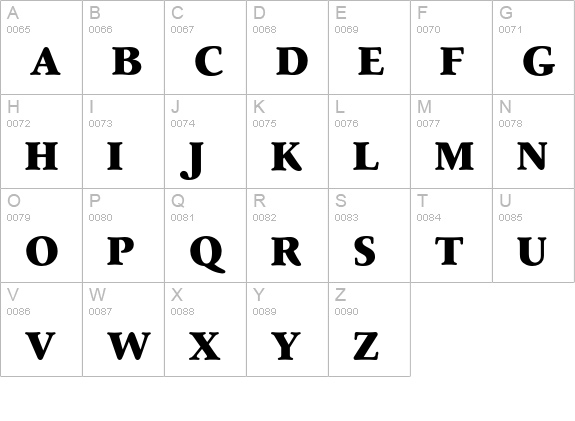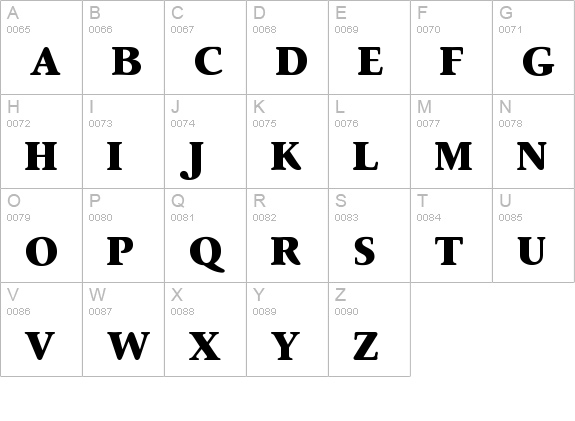
Seneca Extra Bold is a strong, high-contrast variant in the Seneca typeface family \xE2\x80\x94 well suited to headlines, attention-grabbing titles, and strong calls-to-action.
Seneca Extra Bold font is a magnificent display typeface that exudes power, confidence, and sophistication. Its bold and striking letterforms demand attention and make a lasting impression. Designed with utmost precision and attention to detail, this font is perfect for headlines, logos, posters, and any design project that requires a strong and commanding presence. With its clean and well-defined lines, Seneca Extra Bold font effortlessly combines elegance and modernity. Each letter is meticulously crafted to ensure legibility, even at larger sizes, while maintaining its unique personality. The strong strokes and thick serifs give this font a timeless appeal, making it suitable for both contemporary and vintage-inspired designs. What makes Seneca Extra Bold font even more appealing is that it is freely available to download at FontsMarket.com. This means that designers, creatives, and enthusiasts alike can access this remarkable typeface without any cost. Its availability for free enables designers to experiment, explore, and unleash their creativity without constraints. Whether you're working on a branding project, advertising campaign, or creating striking visual elements, Seneca Extra Bold font will undoubtedly elevate your designs to new heights. Its versatility and boldness make it an essential addition to any designer's toolkit. So why wait? Head over to FontsMarket.com and download Seneca Extra Bold font for free today. Unleash the power of typography and create visually captivating designs that leave a lasting impression.